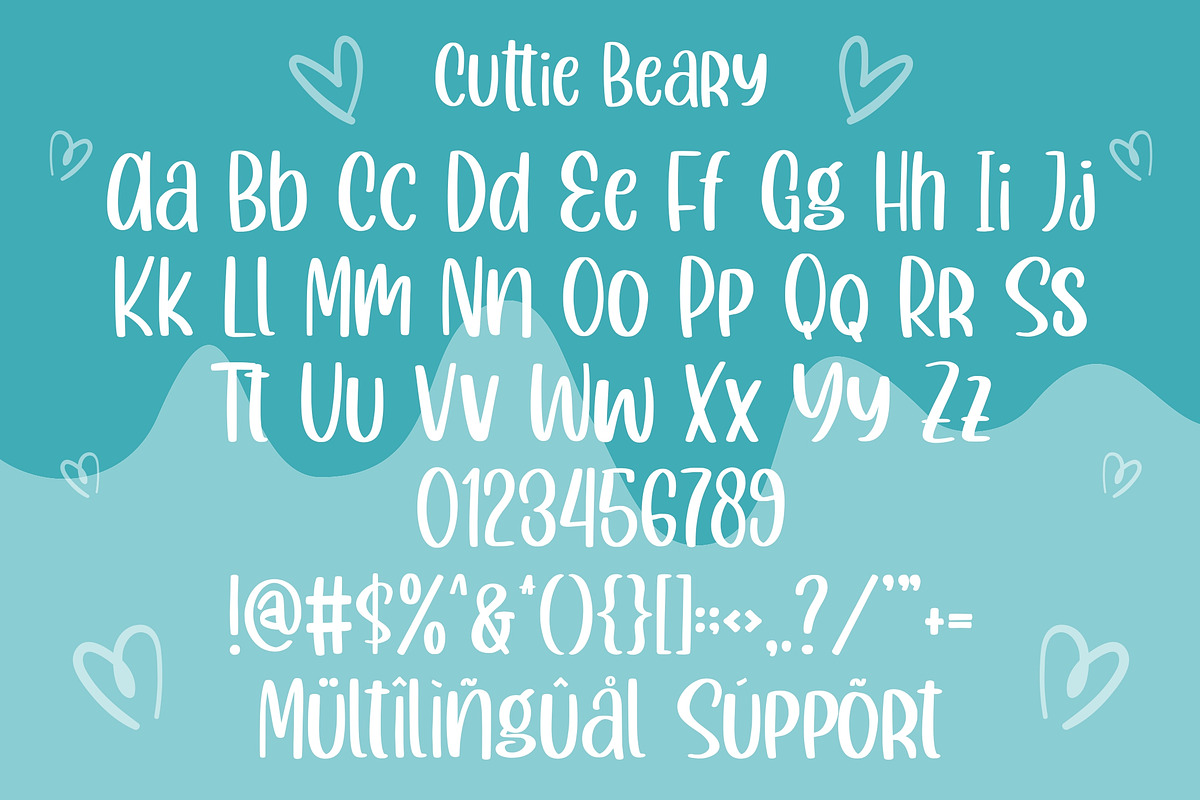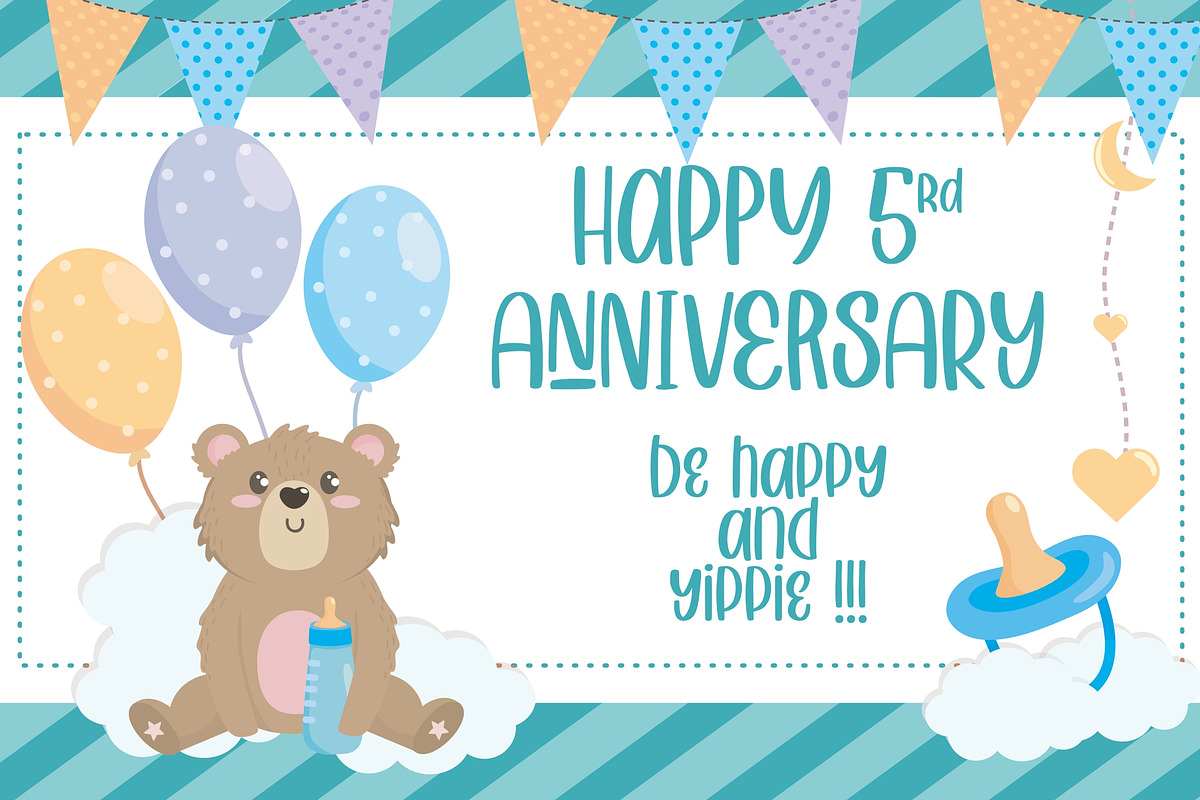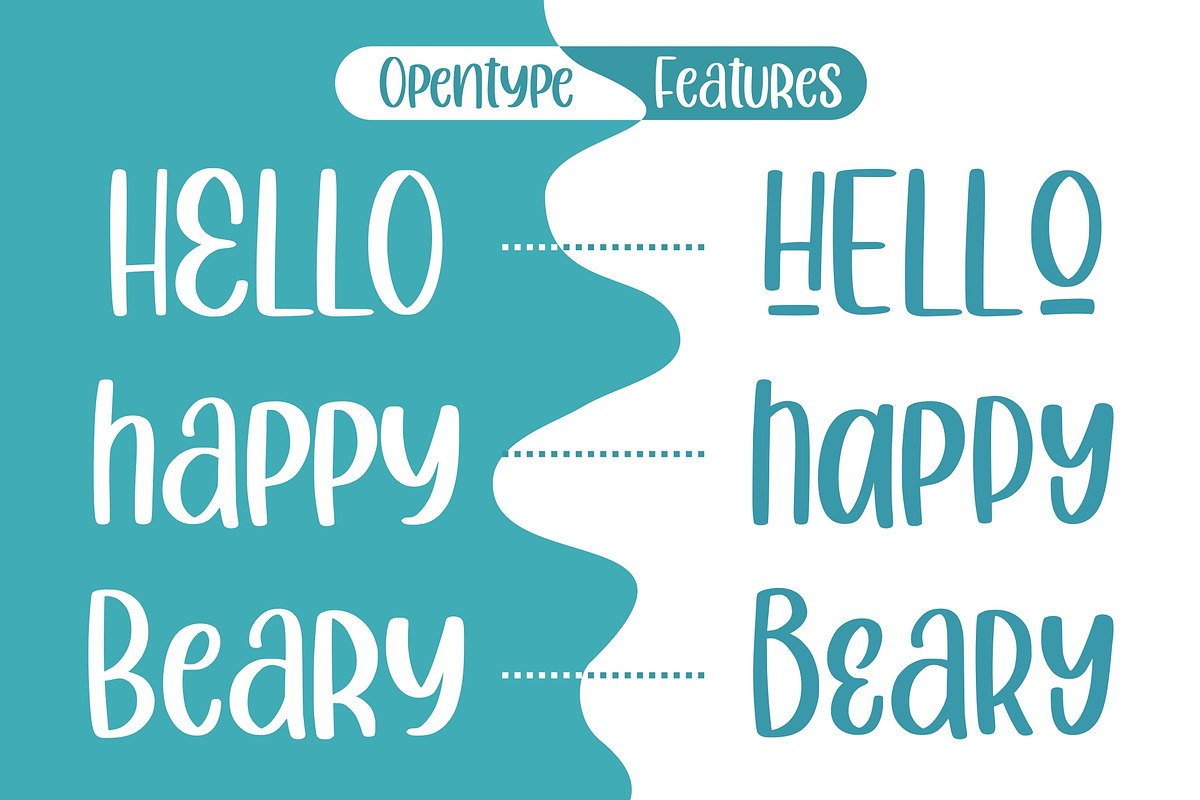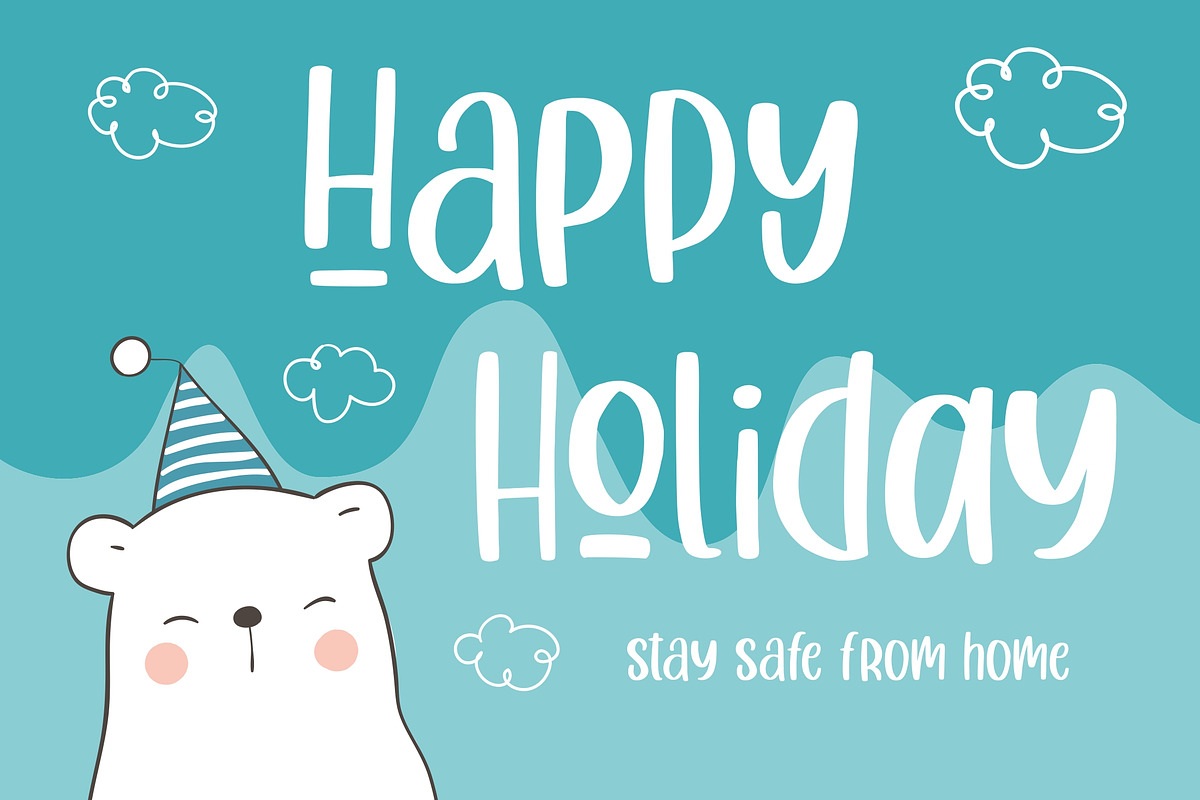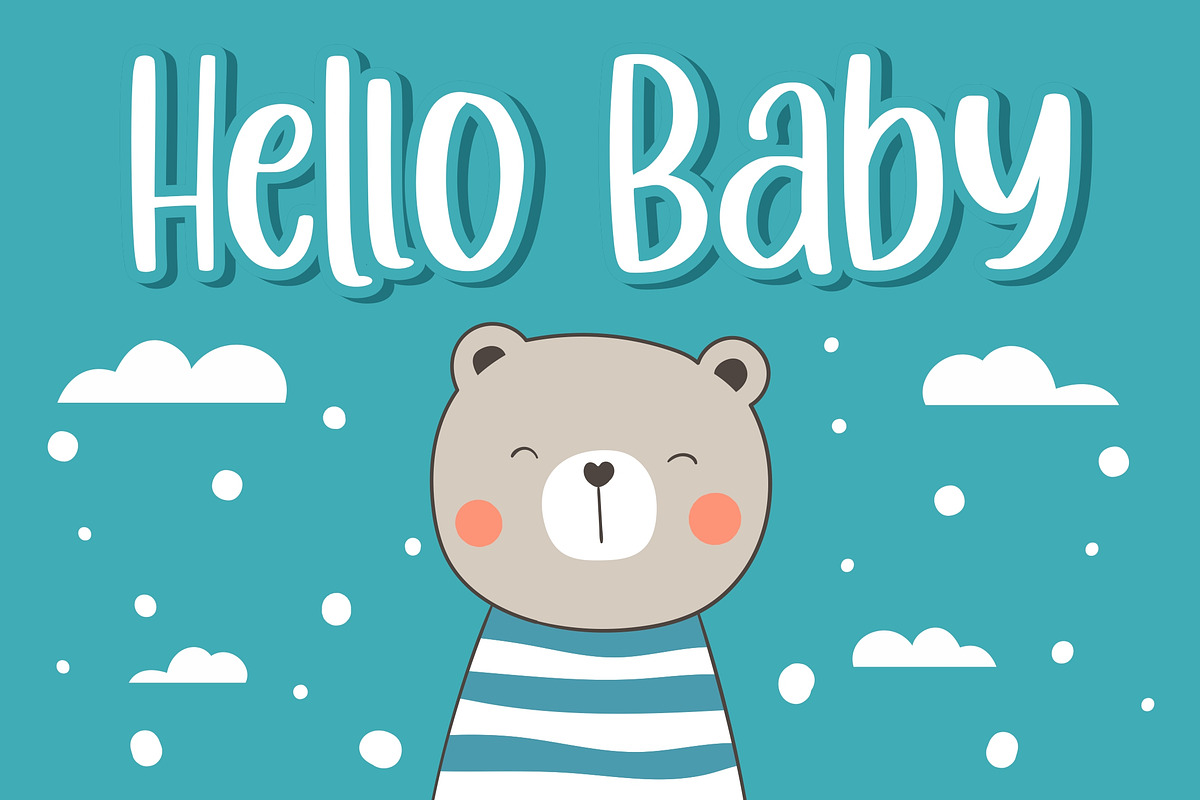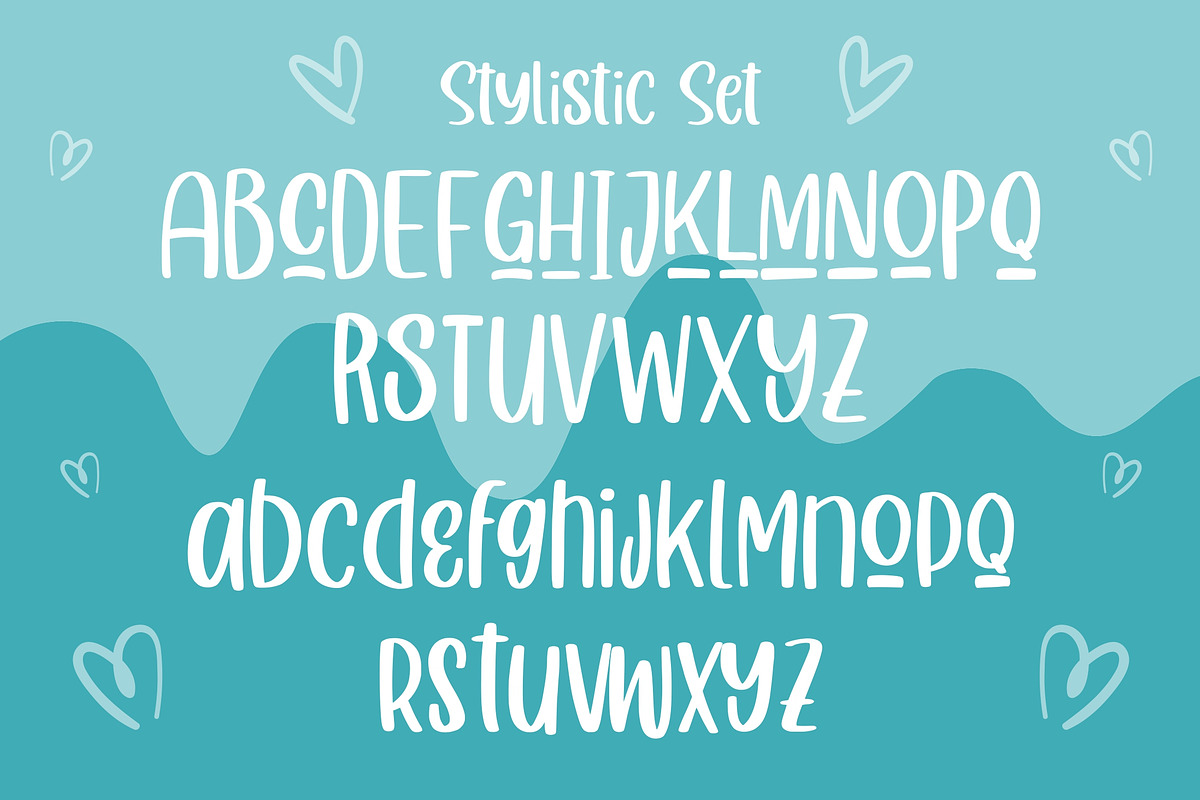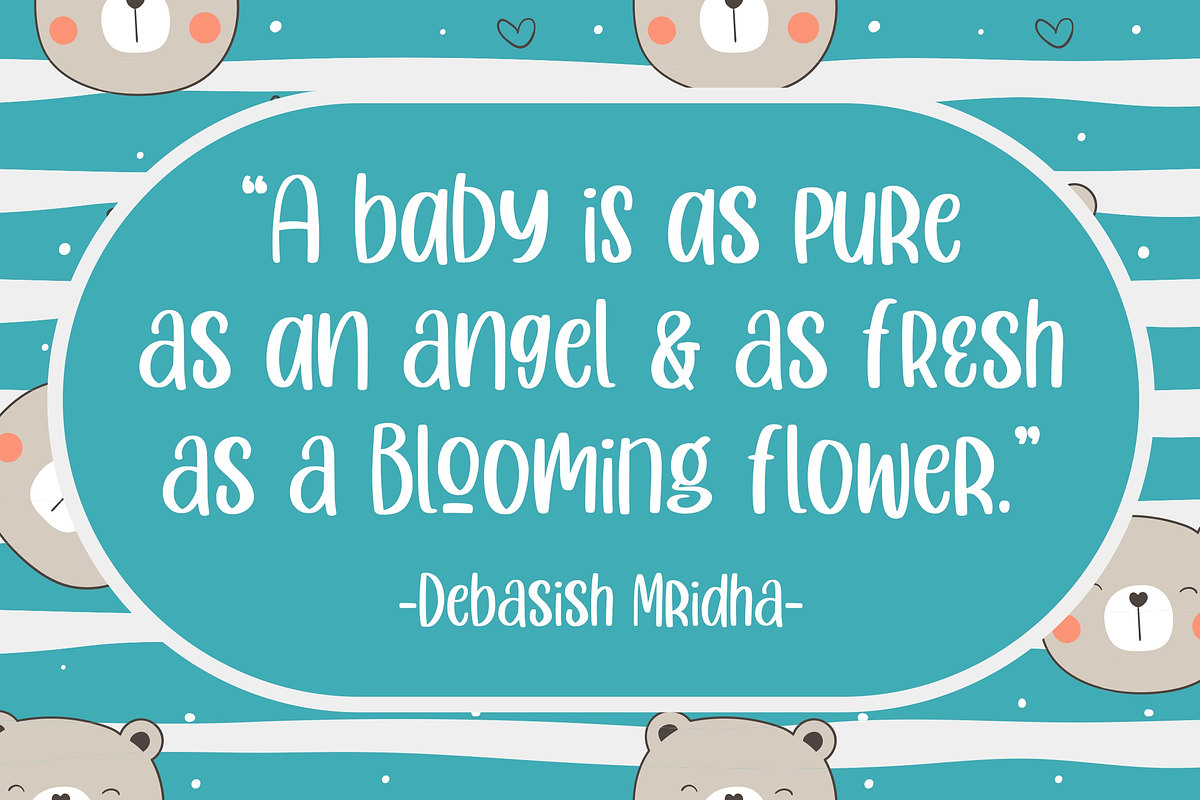
Cuttie Beary - Fun Handwritten Font
Introducing Cuttie Beary - Fun Handwritten Font
Cuttie Beary is the perfect font for all your fun designs. The main font file is equipped with ordinary characters. Everything is made with the funny brush. So you can be sure they will work well together! It is suitable for you to use in making t-shirt design, quote, label, packaging, logo type, or long writing. Because we have compiled kerning and matrices that are tailored to your needs.
Cuttie Beary features:
Opentype Features (Stylistic Alternates and Ligatures)